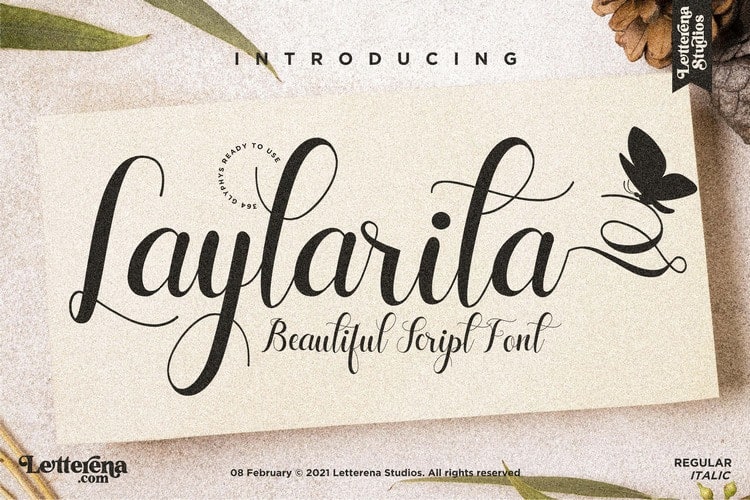
Laylarita Font
Laylarita Calligraphy Font is new quality calligraphy font. It’s designed and shared by Letterena Studios. It’s a romantic calligraphy font, suitable for any projects such as: logos, branding projects, homeware designs, product packaging, mugs, quotes, posters, shopping bags, t-shirts, book covers, name card, invitation cards, greeting cards, label, photography, watermark, special events, and all your other lovely projects that need a beautiful Script taste.